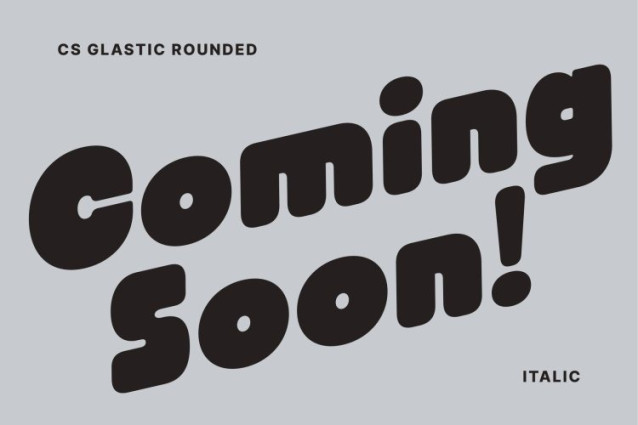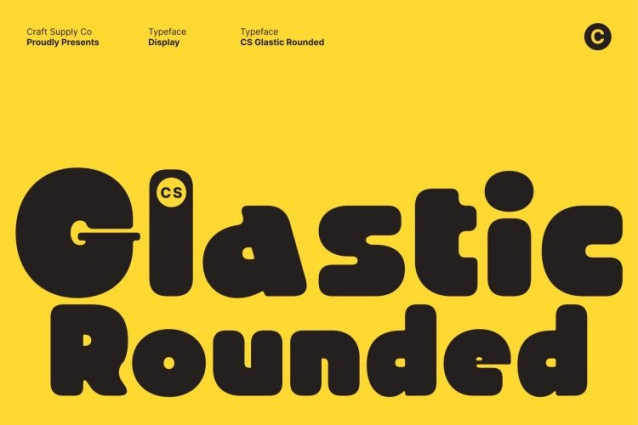
CS Glastic Rounded Font
CS Glastic Rounded Font This is a modern sans serif display font built to deliver strong visual impact through confident, geometric construction. Its bold weight and solid proportions create an immediate presence that feels modern, expressive, and full of energy.
Clean Structure with Confident Personality
The letterforms are defined by clear geometry and balanced spacing, giving the font a structured and contemporary foundation. Rounded edges soften the strong shapes, resulting in a clean yet chunky appearance that feels approachable while maintaining visual authority.
Funky Details, Playful Energy
What sets apart is its subtle funky character woven into the geometric framework. Playful proportions and distinctive details add personality and charm without sacrificing readability. This blend of order and creativity creates a youthful, relaxed, and engaging impression.
Perfect for Bold, Cheerful Designs
Designed for standout applications, this font ideal for logos, branding, product packaging, headlines, and cheerful posters. Its modern geometric style paired with soft, rounded forms makes it especially suitable for creative brands, fashion visuals, entertainment graphics, and contemporary promotional campaigns.